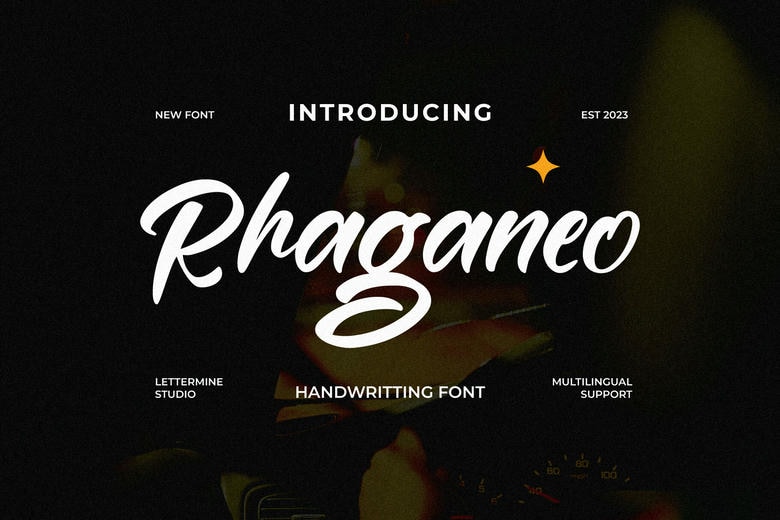
Rhaganeo Font
Rheganeo is a script font with some grace and sophistication written all over it. It gave a smooth and softer contour line which gives a rather elegant touch and slightly romantic. This type of paper is ideal for invitations, logos and pretty designs because Rhaganeo gives any project an air of sophistication as well as charm which can capture the interest and charm of an audience.
Rhaganeo Handwritten Script Font